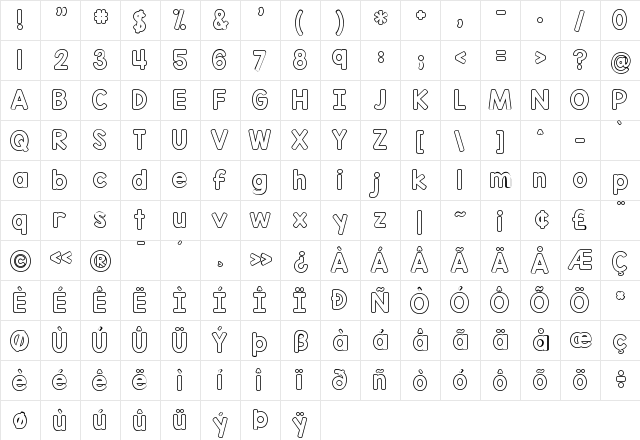
KG Red Hands Outline Regular
| Foundry | Kimberly Geswein |
| Designer | Kimberly Geswein |
Design Context for KG Red Hands Outline Typeface
KG Red Hands Outline flows with the natural rhythm of handwritten lettering, making it ideal for designs that call for warmth and personal expression.